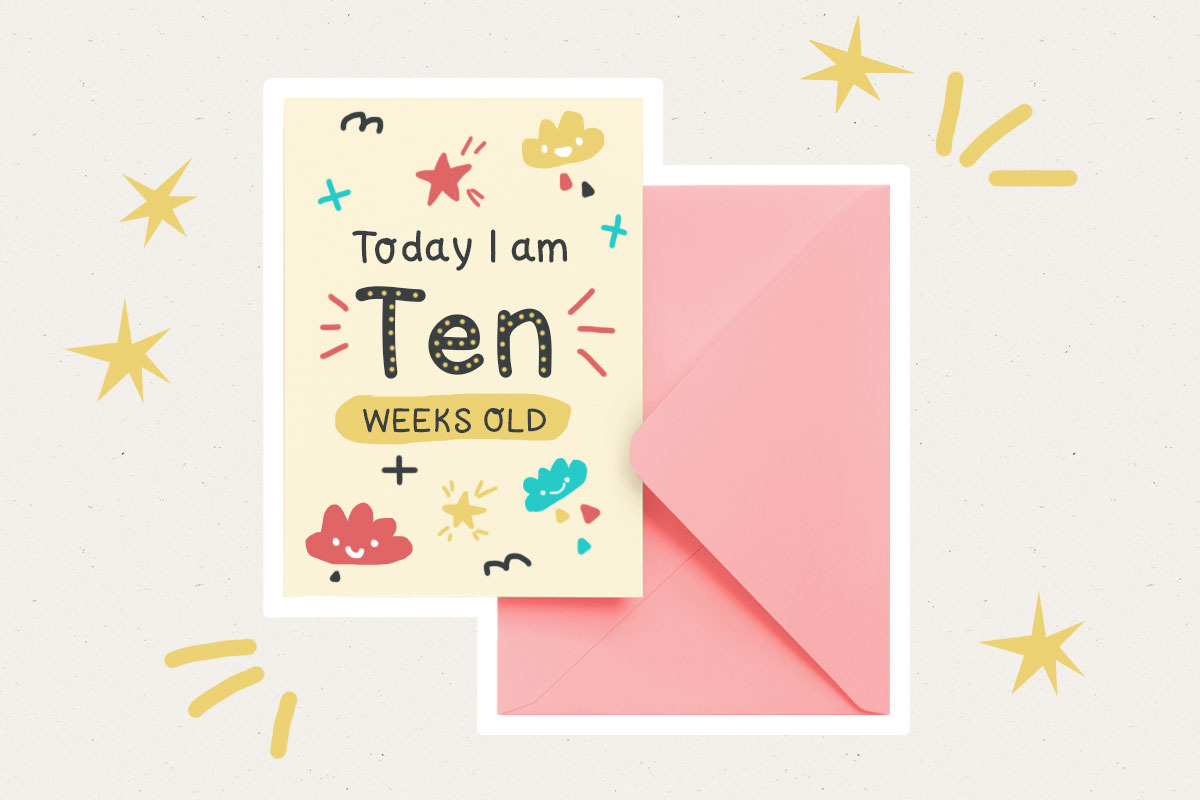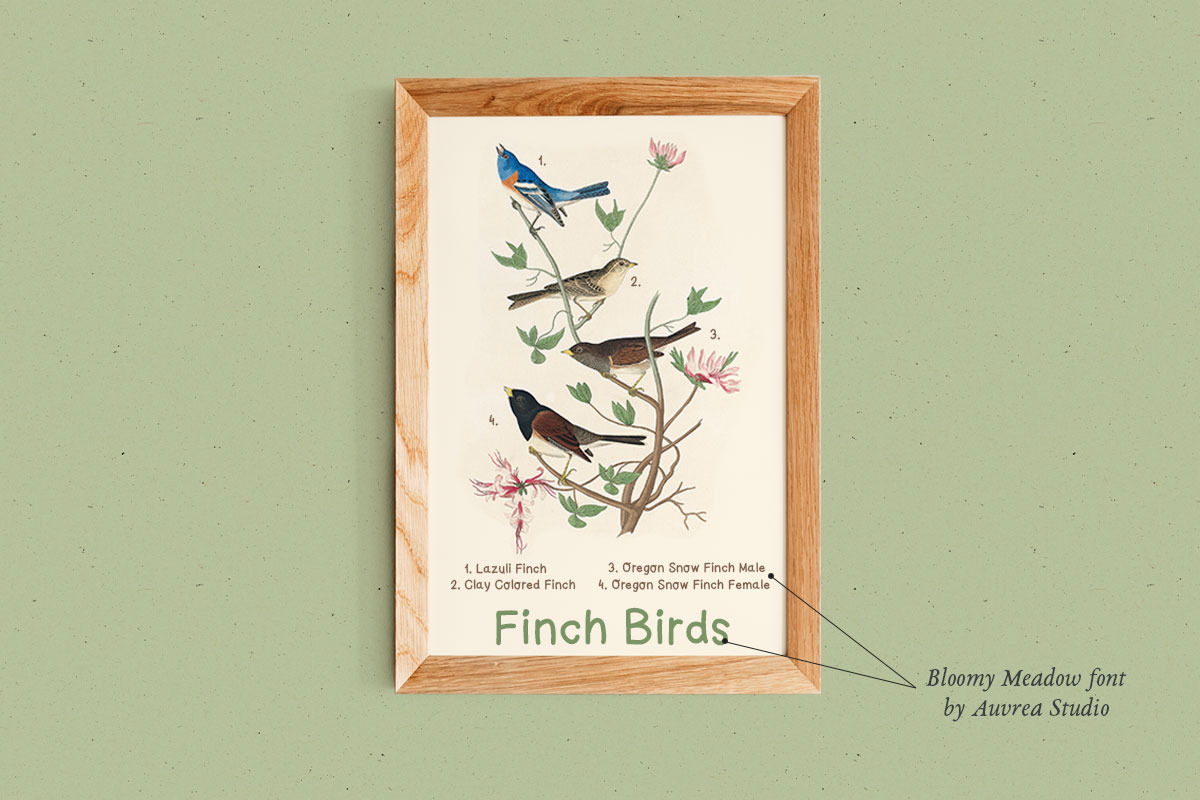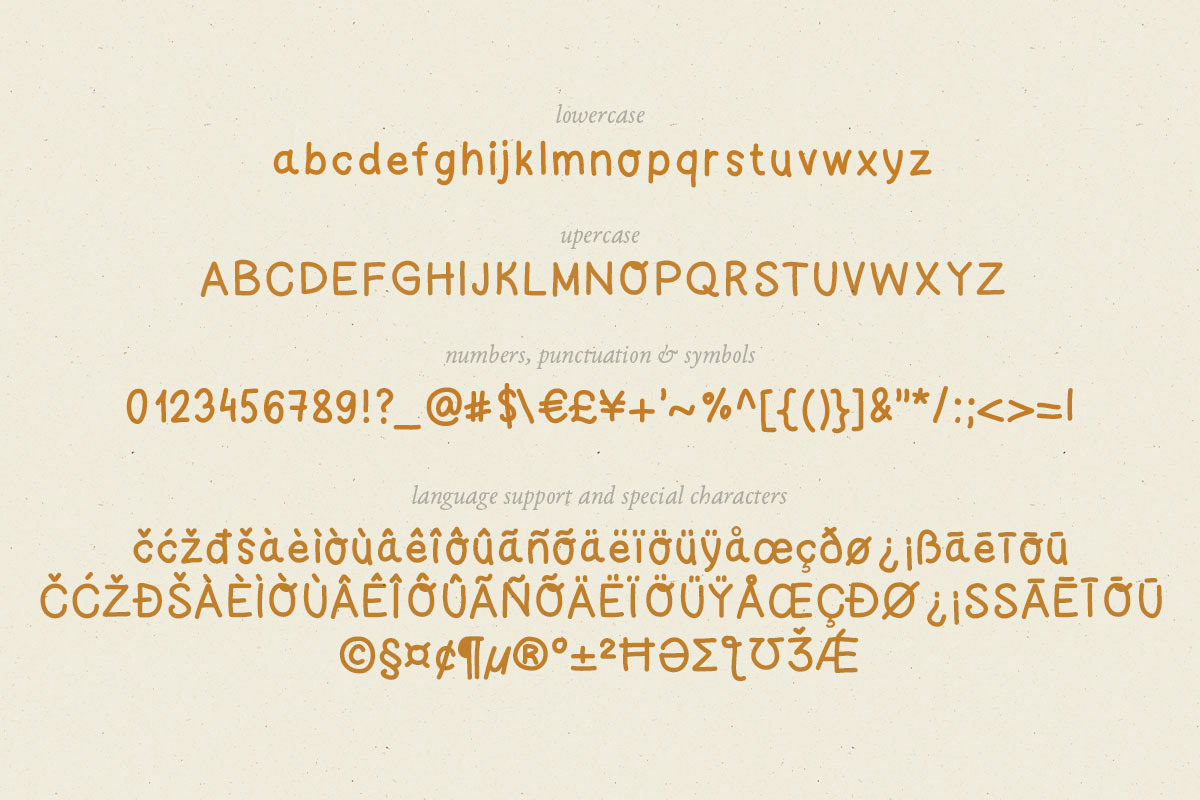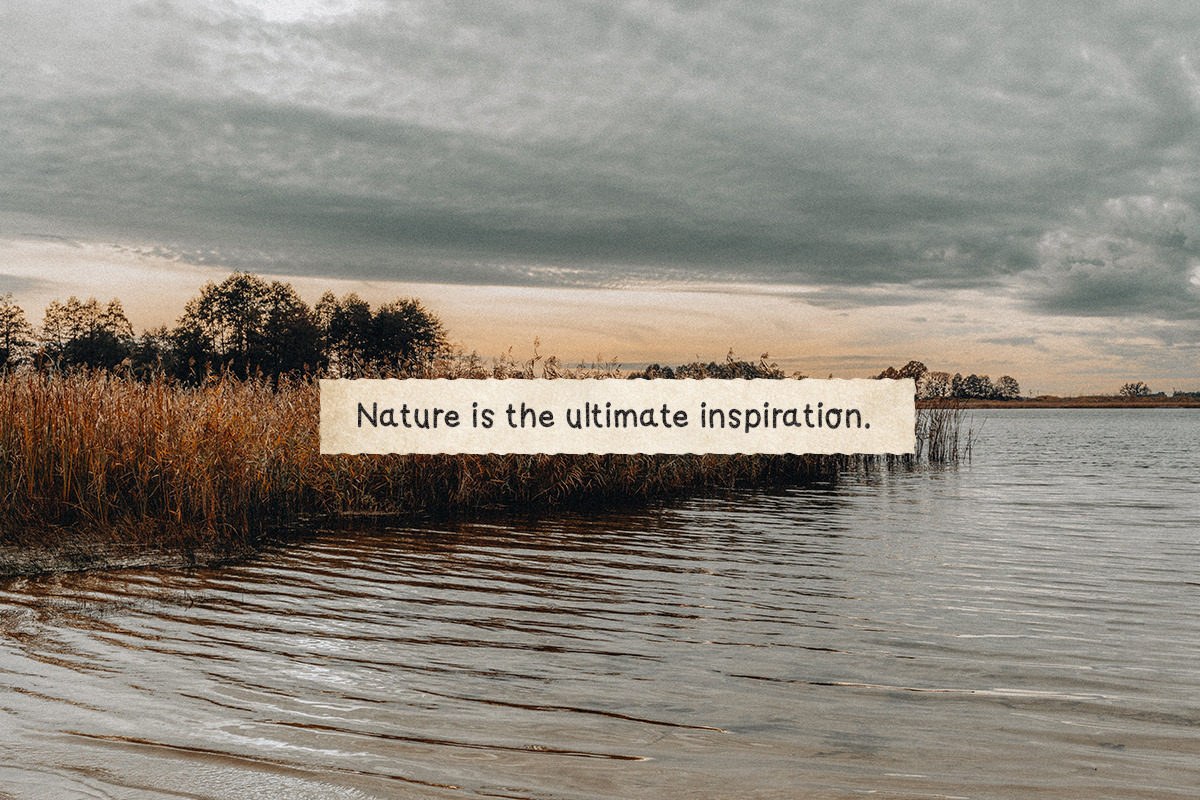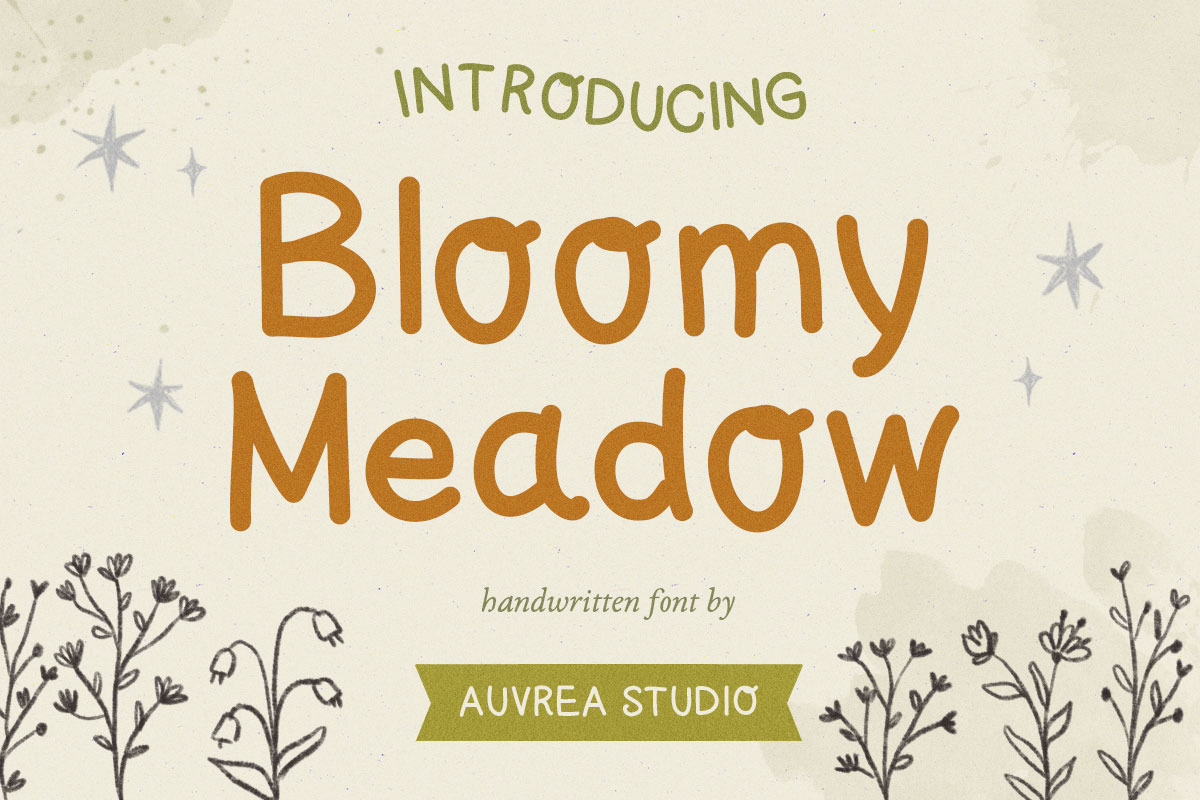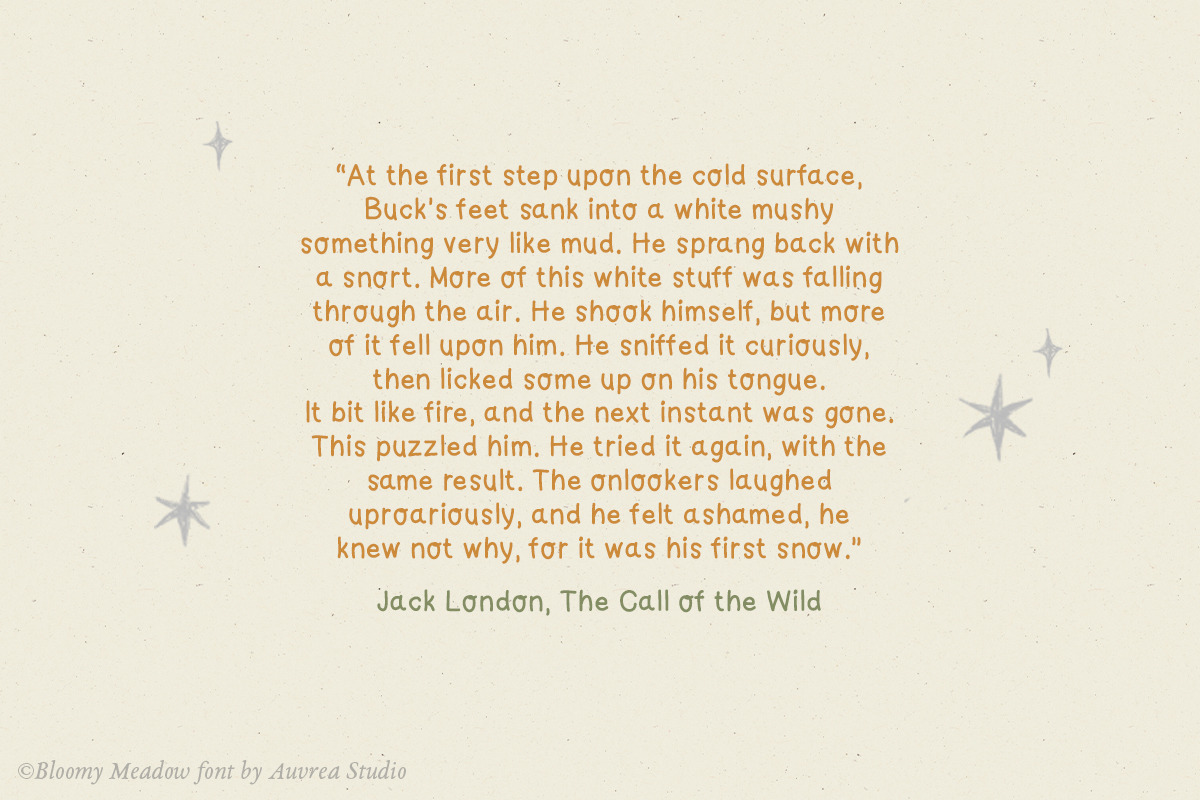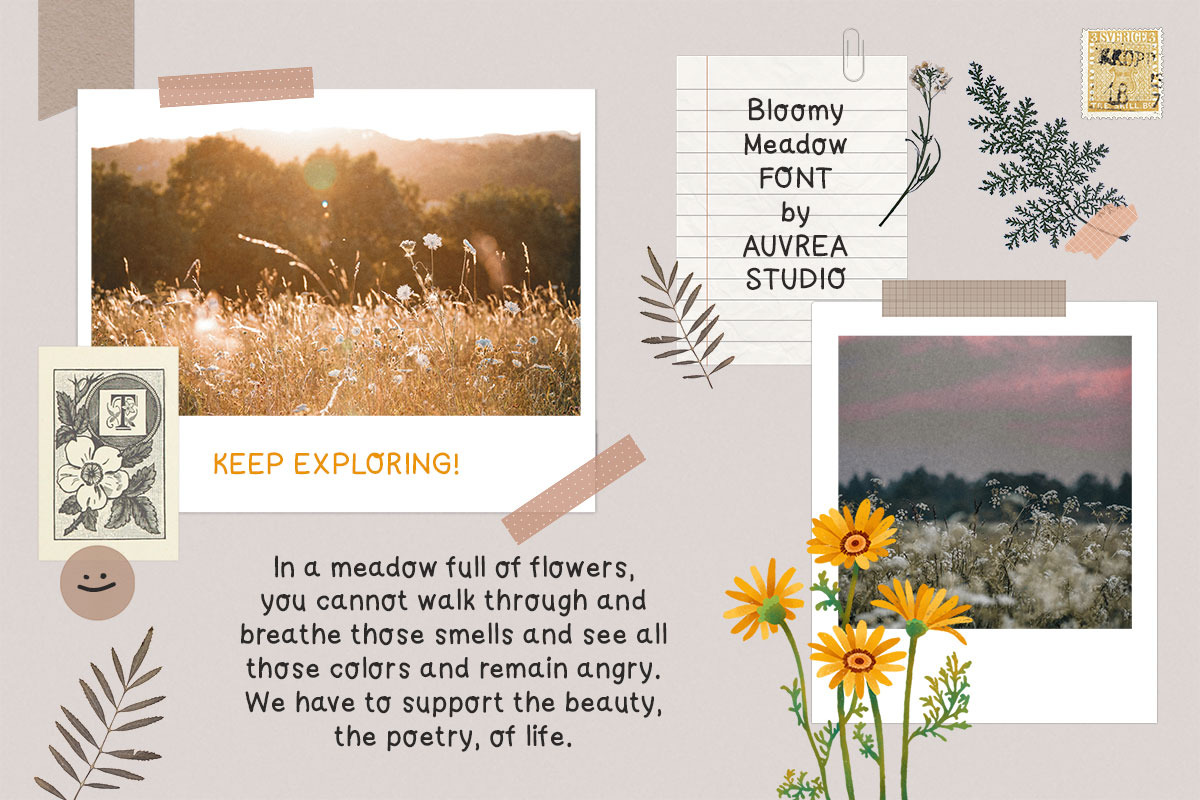
Bloomy Meadow - Handwritten font
Bloomy Meadow, an adorable and charming handwritten font. Perfect for invitations, greeting cards, journals, handwritten notes, posters, children's books, packaging and so much more.